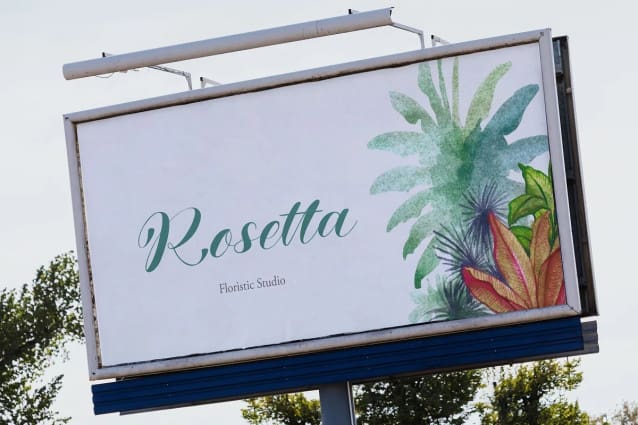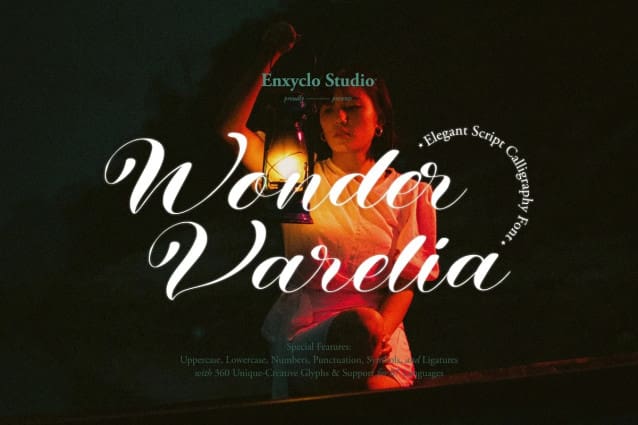
Wonder Varelia Font
Wonder Varelia Font is handwriting script calligraphy font perfect for wedding stationery, elegant handwritten logos and branding, websites, signature, headline, product packaging, social media quotes, and more! This font is modern, simple, but still authentic. You will get full set of lowercase and uppercase letters, numerals and punctuation, multilingual symbols, and ligatures. See the previews above to get some inspiration on how to use them.